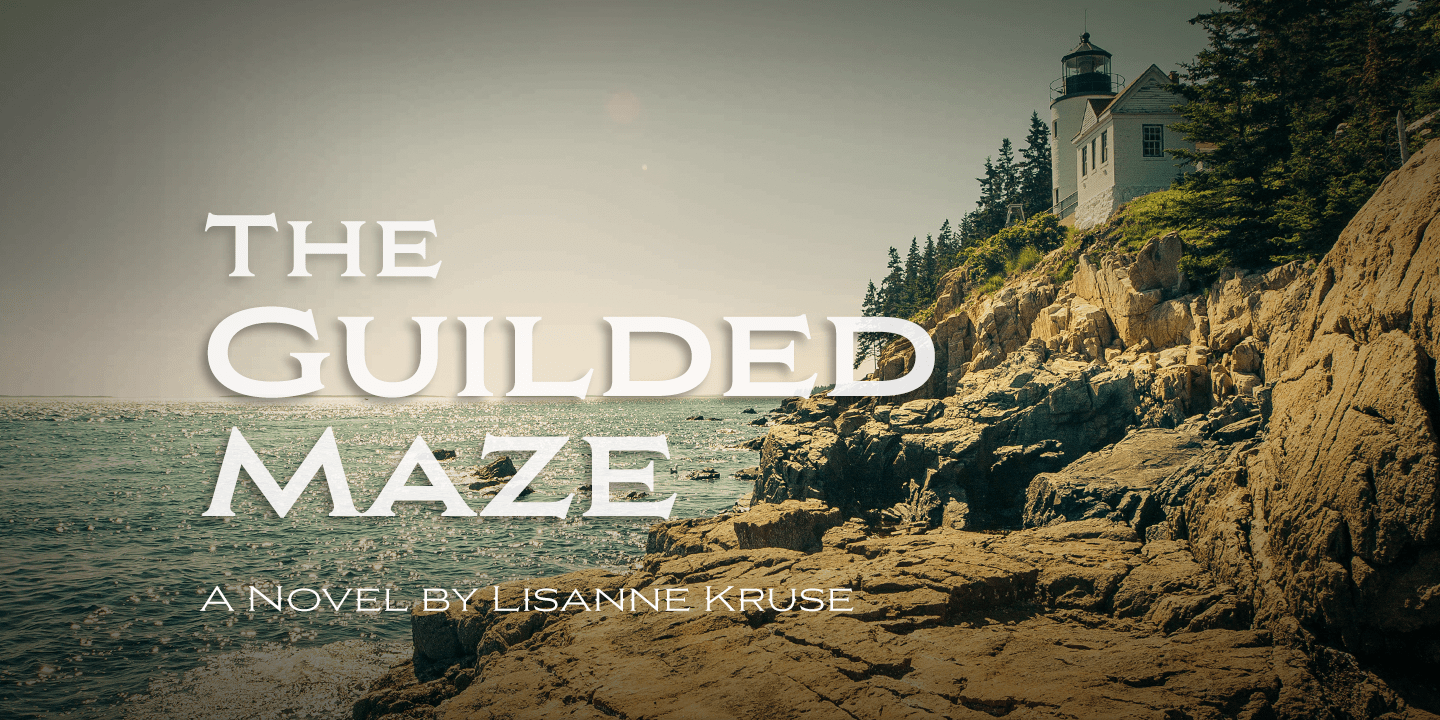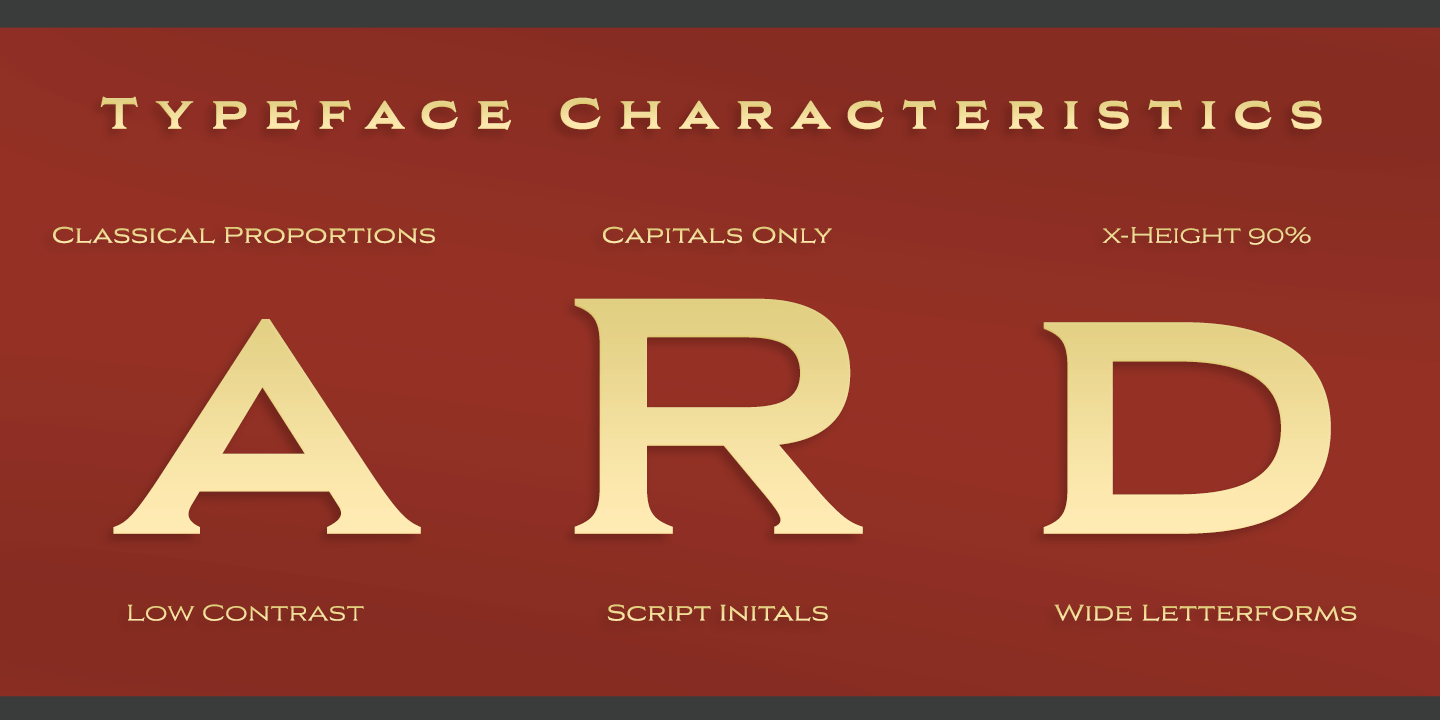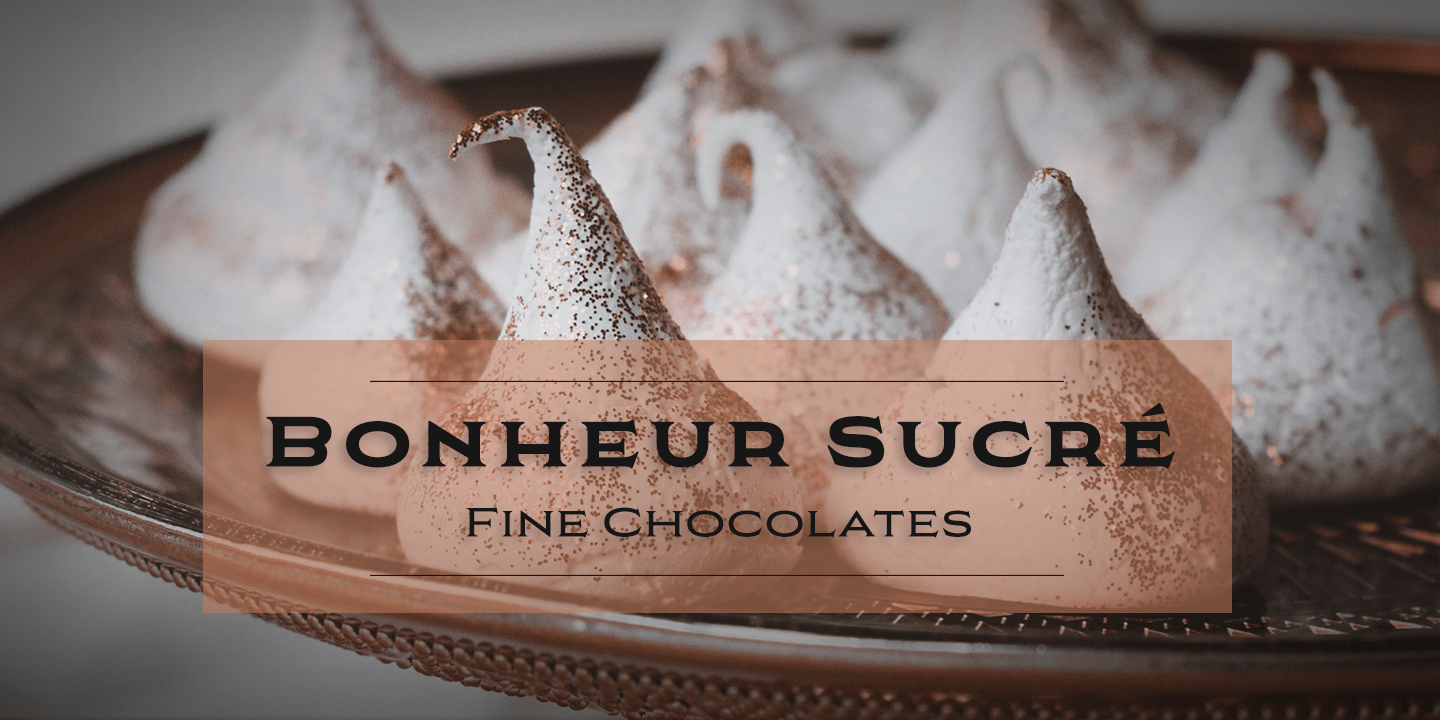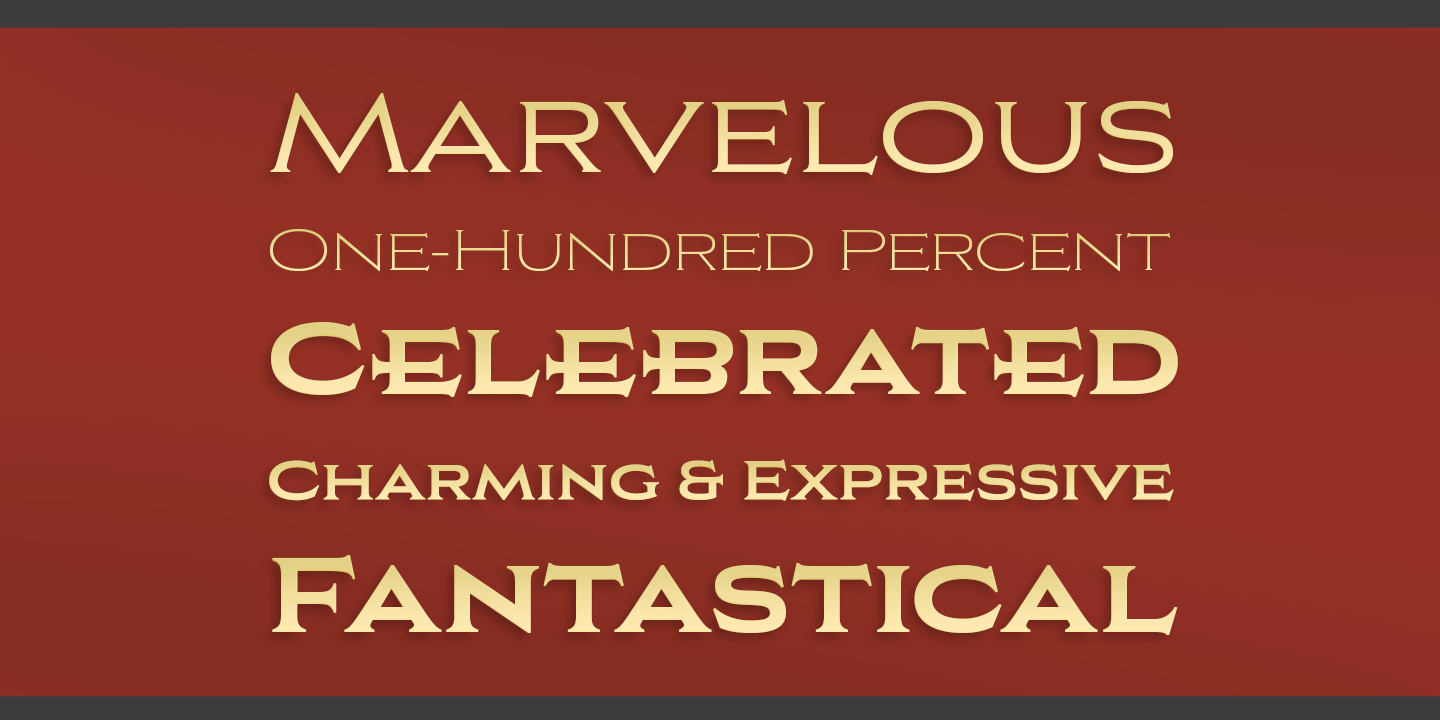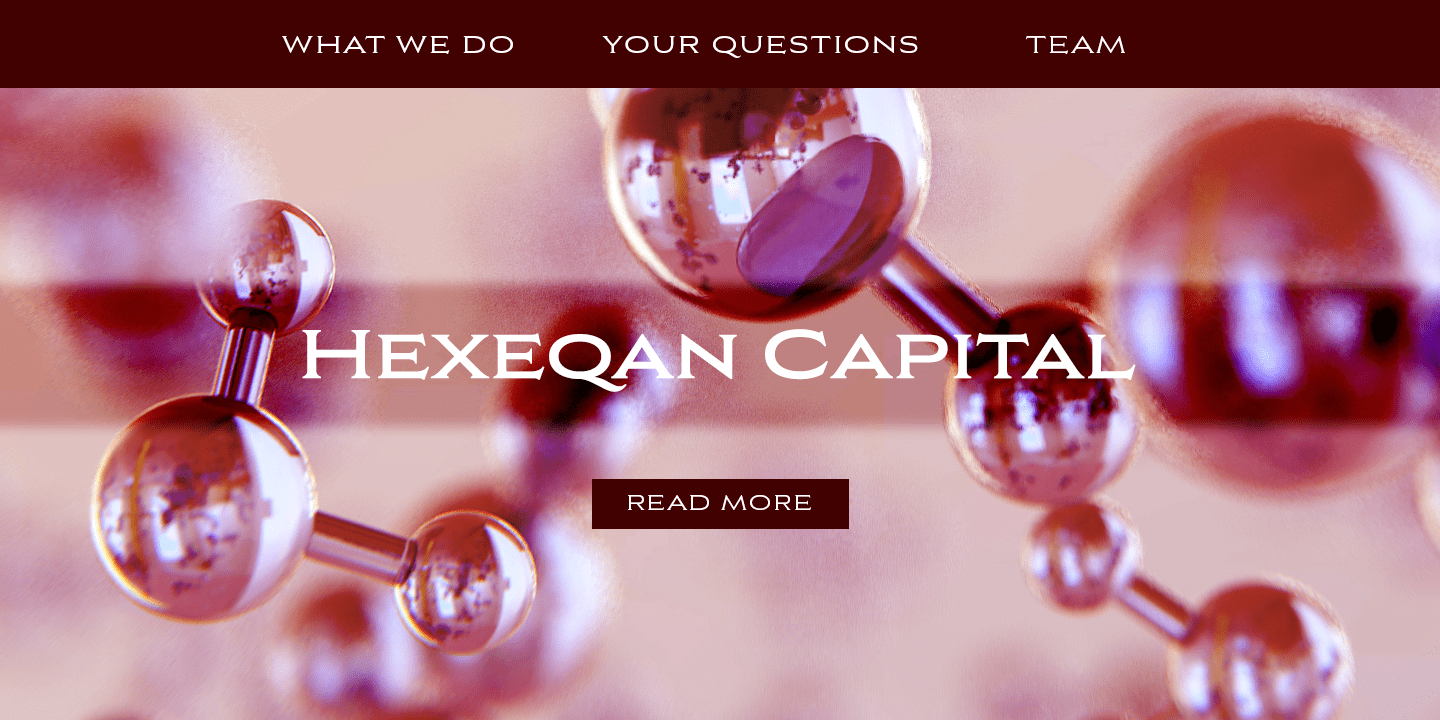
About Aviano Copper
The retro-inspired design of Aviano Copper echos the bold style of America\’s Gilded Age. Inspired by the copper-inscribed intaglio printing designs of the early 20th century, the powerful, wide character shape of this font walks softly across your page…